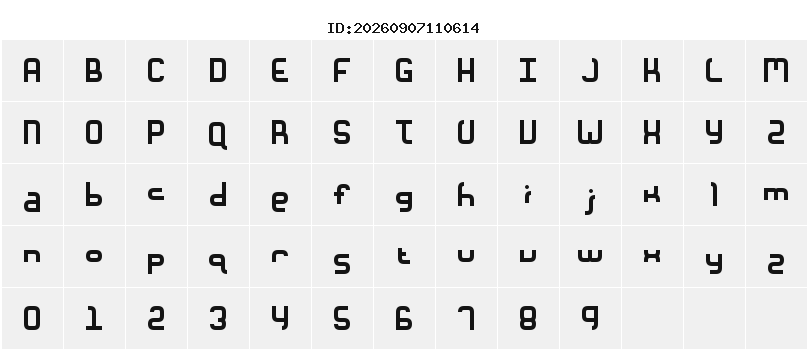
Unionform Preview
About Unionform.ttf
Unionform.ttf is a modern, elegant sans-serif font designed for ultimate readability and visual harmony. Perfect for branding, headlines, web design, and print materials.